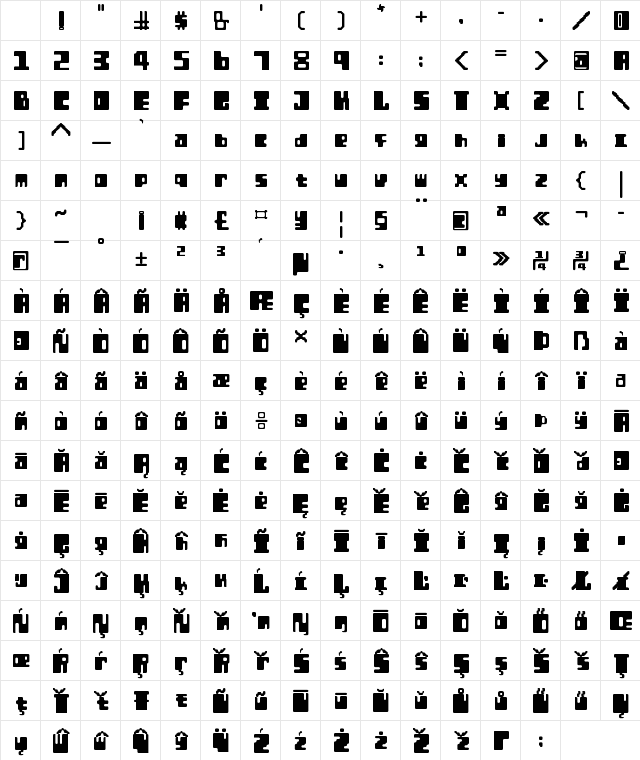
Complete Orthotopes Regular glyph index. Displaying only characters natively supported by Orthotopes Regular font.
Orthotopes is a composed and adaptable typeface that performs quietly and consistently across a wide range of design contexts.